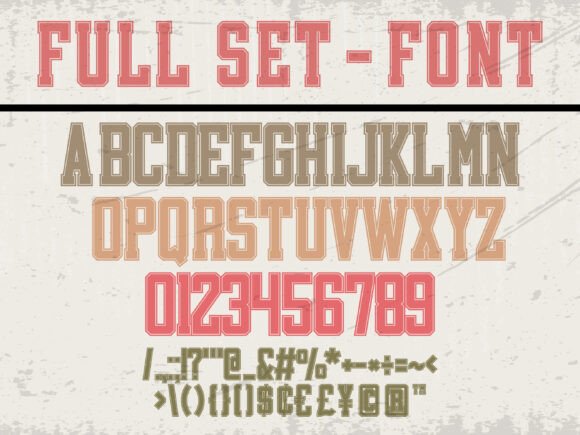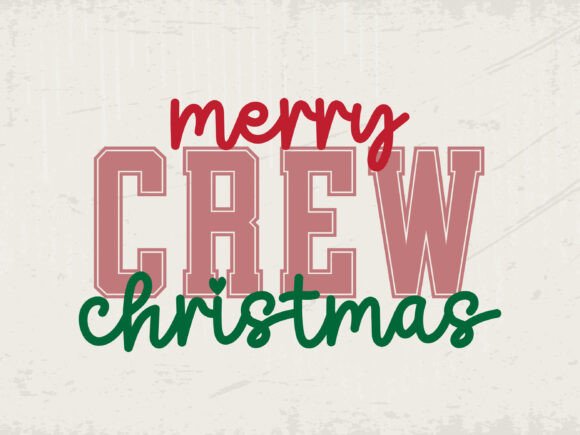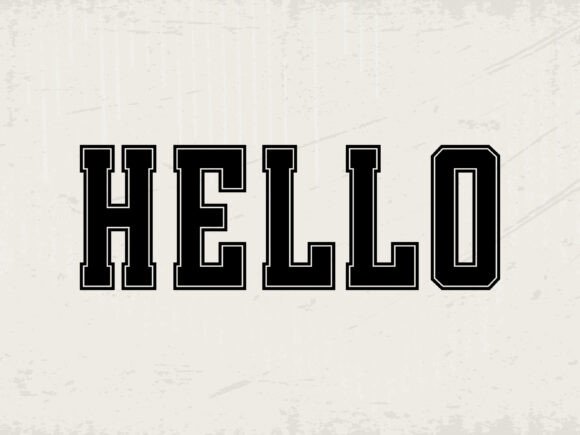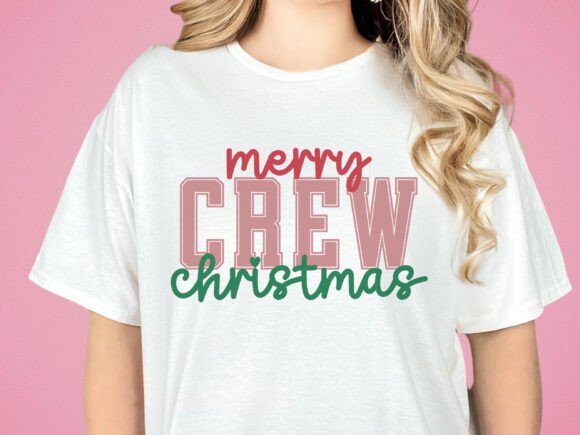
Discover the Versatility of College Font: Elevate Your Designs with Style
When it comes to creating visually appealing designs, the right font can make all the difference. For designers and crafters looking to add a touch of professionalism and style to their projects, the College Font is an ideal choice. This serif font is perfect for branding any professional project, including T-shirts, logos, and more, making it a versatile tool for a wide range of applications.
What Makes College Font Stand Out?
The College Font is specifically designed to cater to the needs of designers who are looking for a sporty yet stylish font. It features a complete set of sporty uppercase letters and stylish lowercase script, ensuring that your designs stand out with a unique flair. Along with numerals, punctuation, and other symbols, this font offers everything you need for versatile use.
Ideal for Sports-Themed Designs and Web Graphics
One of the key strengths of the College Font is its suitability for sports-themed designs. Whether you’re working on a logo for a sports team, creating merchandise for a sports event, or designing web graphics for a sports-related website, this font is sure to hit a home run. Its sporty vibe captures the essence of competition and energy, making it perfect for projects that require a dynamic and engaging look.
Enhance Your Branding with College Font
Branding is all about creating a consistent and recognizable visual identity, and the font you choose plays a crucial role in this process. The College Font, with its professional and stylish appearance, can help elevate your brand’s image. It’s suitable for a variety of applications, from T-shirts and logos to business cards and letterheads, ensuring that your brand maintains a cohesive and polished look across all platforms.
Why Designers and Crafters Love College Font
Designers and crafters appreciate fonts that are easy to use and offer flexibility. The College Font checks all the boxes in this regard. Here are a few reasons why it’s a favorite among creative professionals:
- Easy to Read: Despite its stylish and sporty appearance, the College Font remains highly legible, making it suitable for both headlines and body text.
- Versatile: With a complete set of uppercase and lowercase letters, numerals, and symbols, this font can be used for a wide range of projects.
- Customizable: The font’s design allows for easy customization, enabling you to tweak it to fit your project’s specific needs.
Tips for Using College Font in Your Designs
To get the most out of the College Font, consider the following tips:
- Mix and Match: Combine the sporty uppercase letters with the stylish lowercase script to create visually appealing text hierarchies.
- Play with Sizes: Use different font sizes to emphasize certain parts of your design, such as headlines and subheadings.
- Experiment with Colors: While the font itself is a key element, the color you choose can also significantly impact your design. Experiment with different colors to find the perfect match for your project.
The College Font is a powerful tool for designers and crafters looking to add a professional and stylish touch to their projects. Its sporty yet elegant design makes it perfect for a wide range of applications, from sports-themed designs and web graphics to T-shirts and logos. With its versatility, readability, and customization potential, it’s no wonder that College Font has become a go-to choice for creative professionals. Whether you’re working on a branding project or just looking for a font that can elevate your designs, College Font is definitely worth considering.